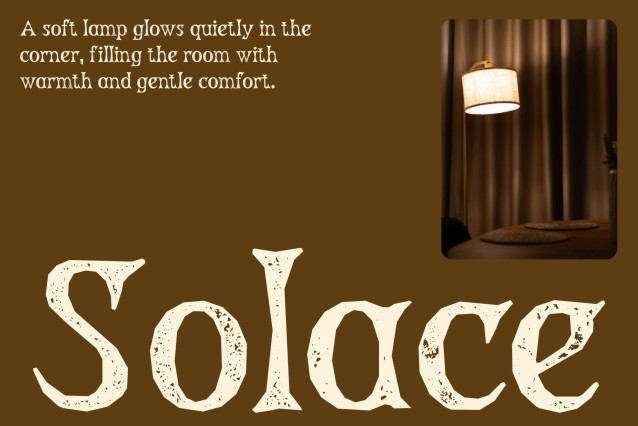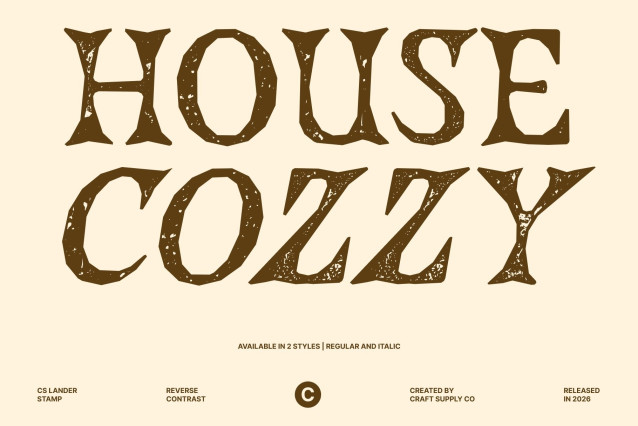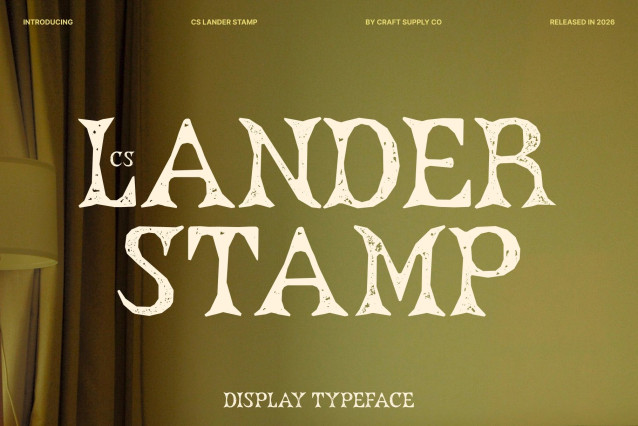
CS Lander Stamp Font
CS Lander Stamp – Reverse Contrast Font: A Bold Statement of Retro Rebellion
Distinctive Reverse Contrast Design
This is a striking reverse contrast display font crafted to deliver a powerful visual statement. Featuring thick outer strokes combined with thinner inner details, the letterforms create a dynamic rhythm that instantly attracts attention. This unconventional structure gives the typeface a playful yet confident personality, making it ideal for bold and expressive design work.
Vintage Stamp Texture with Modern Structure
Enhanced with a distinctive stamp effect, the font gains subtle distress, rough edges, and an organic inked texture. These imperfections introduce a handcrafted, vintage print character that contrasts beautifully with its clean and contemporary construction. The result is a balanced blend of modern clarity and retro authenticity.